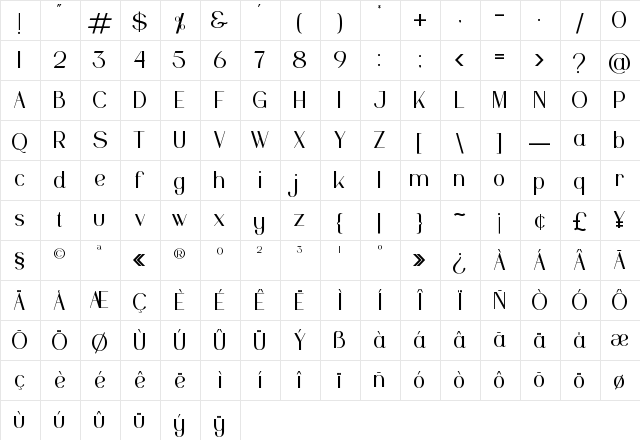
Pinkerston Regular
Design Context for Pinkerston Typeface
Pinkerston is a composed and adaptable typeface that performs quietly and consistently across a wide range of design contexts.